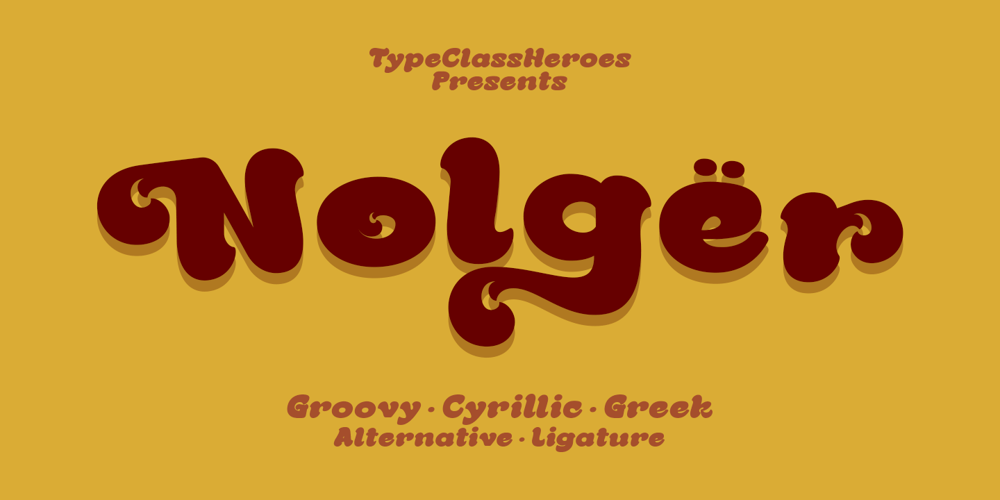
Nolger Font Family was designed by Suandana ipandemade and published by TypeClassHeroes. Nolger contains 1 styles and family package options. Nolger is a groovy font come with 90’s groovy style serif. Groovy and refined you can explore and combine creating rhythm for comfortable reading. This font supports more than 100 Latin-based languages and has extensive Cyrillic and Greek support for languages like Russian, Bulgarian, Ukrainian, and many more. Feature Uppercase & Lowercase Number & Symbol International Glyphs Multilingual support Alternative Ligature Cyrillic & Greek Feel free to drop us a message any time and follow my shop for upcoming updates.Hope you enjoy it.